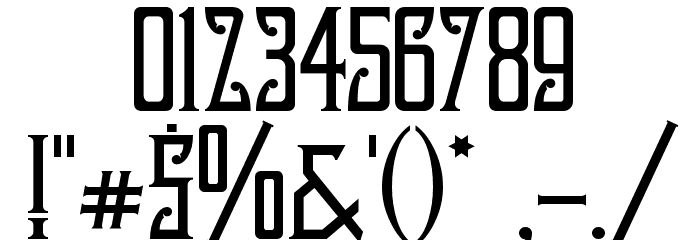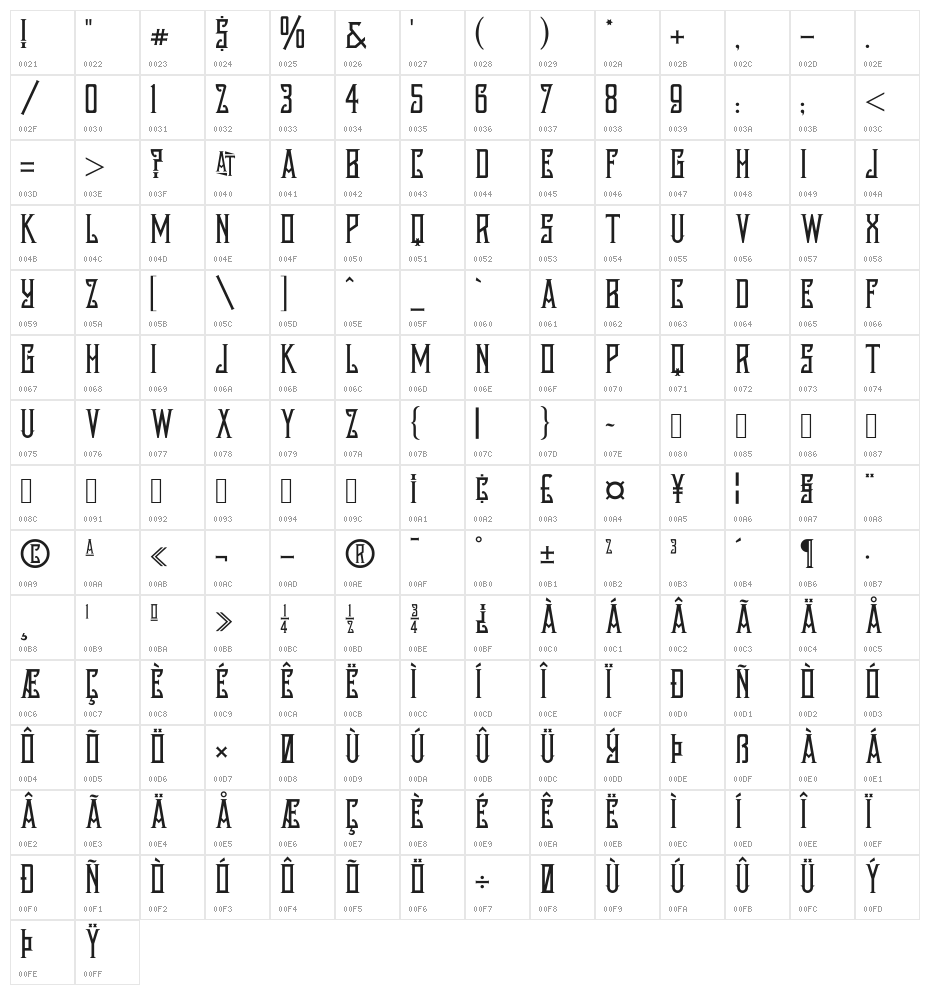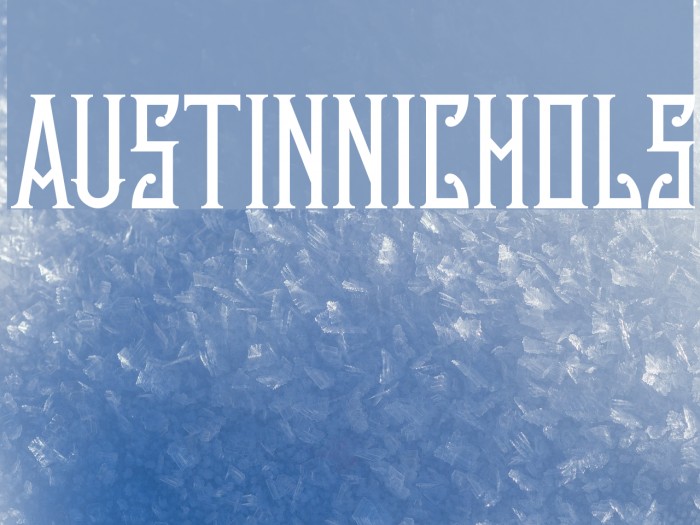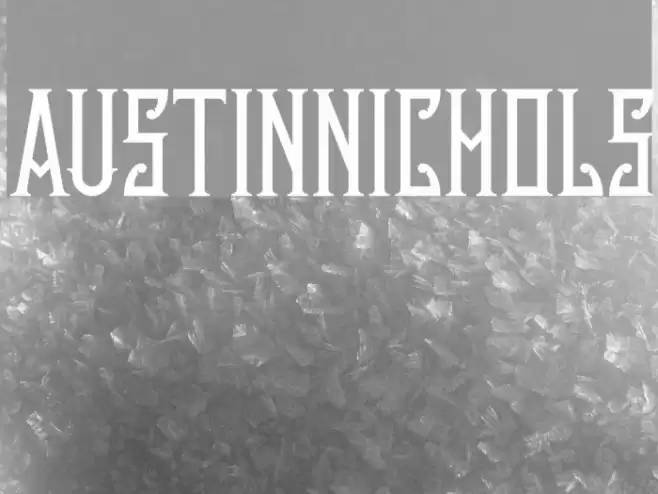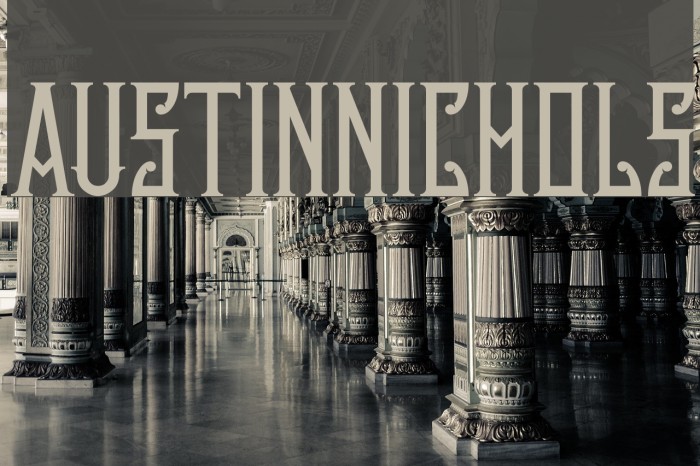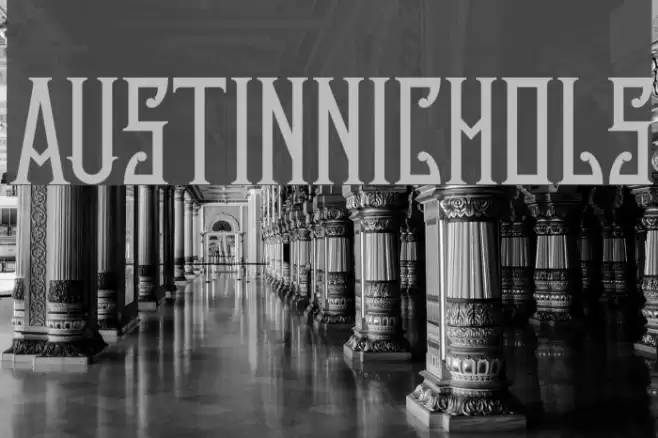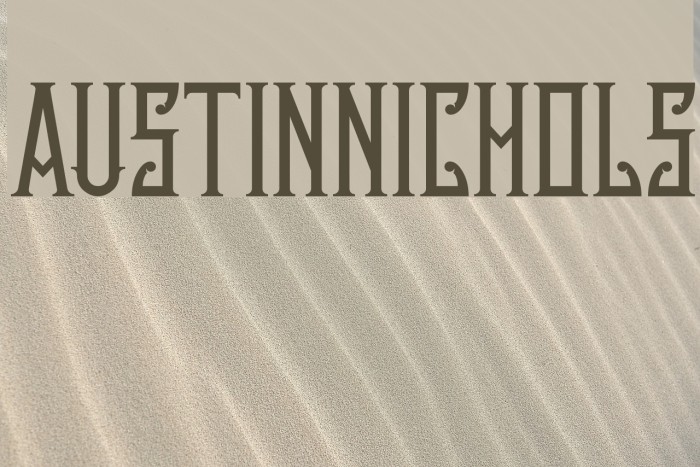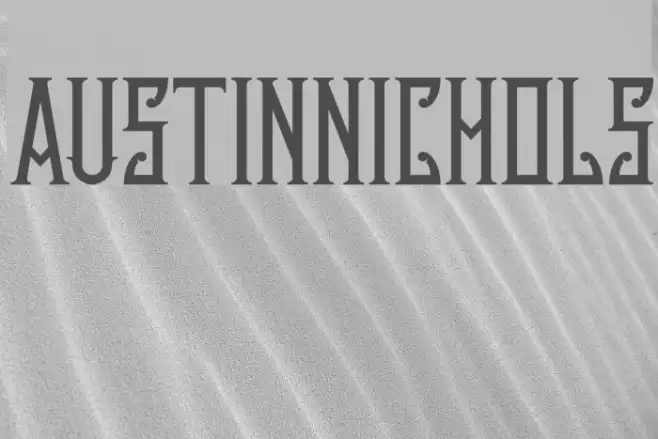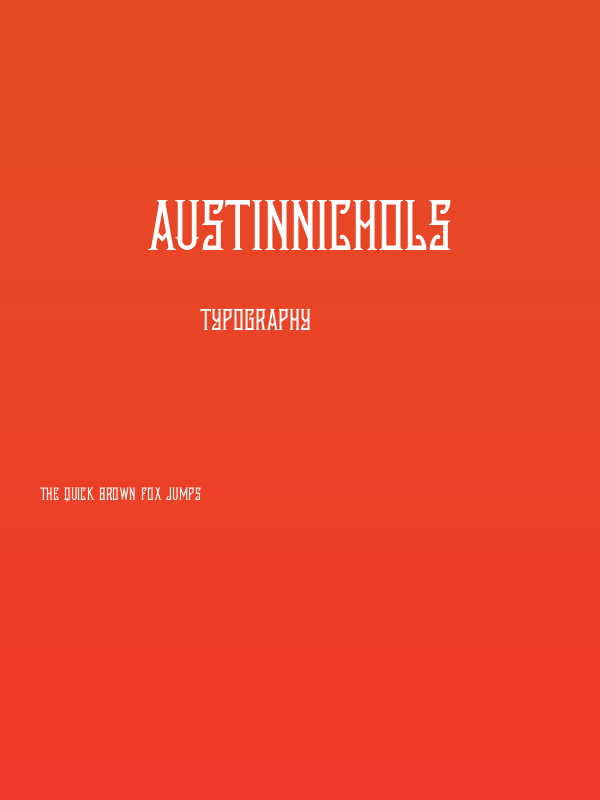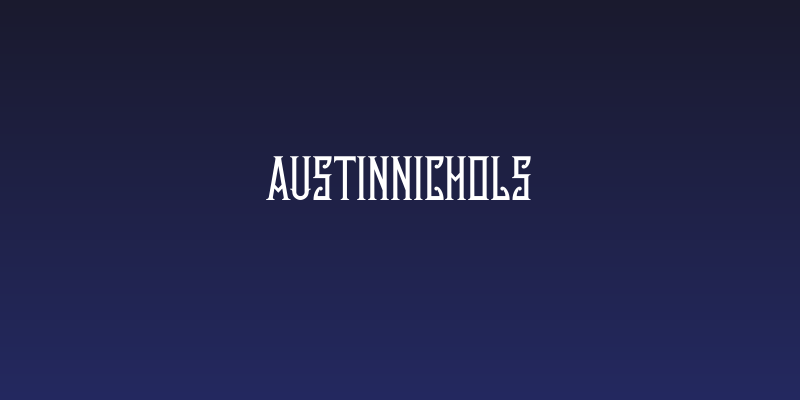
AustinNichols Font
AustinNichols Description
This font features a unique and decorative style with a strong emphasis on geometric shapes and angular serifs. The uppercase letters are tall and narrow, with distinct triangular serifs that add a touch of elegance and sophistication. The lowercase letters maintain the same geometric flair, ensuring consistency throughout the typeface. Numbers are similarly styled, with a bold presence that makes them stand out. The special characters are intricately designed, adding to the overall decorative appeal of the font. This typeface is perfect for projects that require a bold and artistic touch, such as posters, logos, and headlines.
| Proposed Projects | Posters, logos, headlines, branding materials, and artistic designs. |